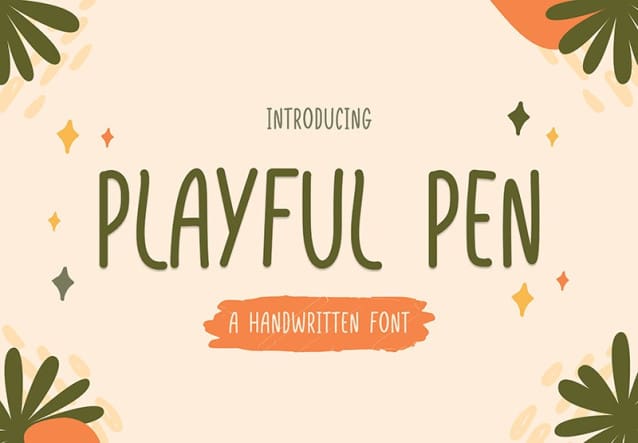
Playful Pen Font
Playful Pen Font a playful handwritten comic font that brings a lively and energetic vibe to your projects! Designed with a fun and quirky style.